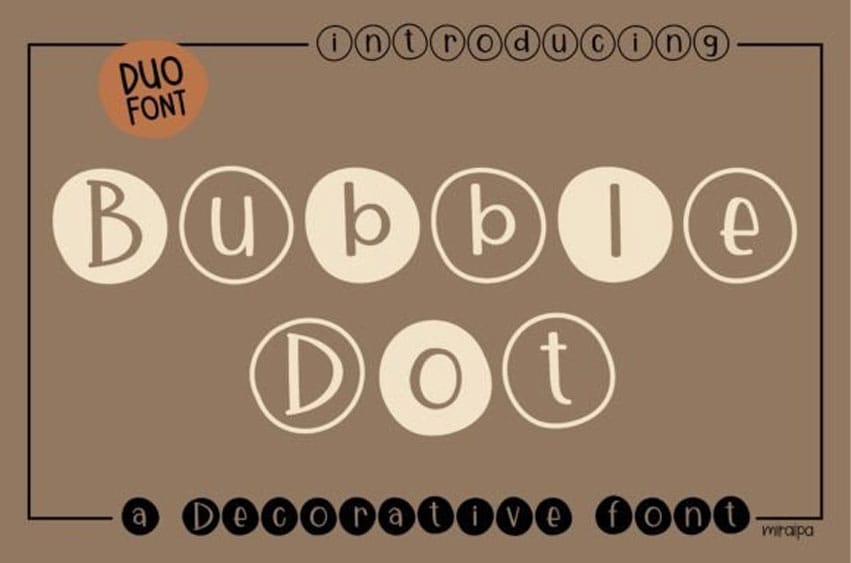
Bubble Dot Font is a cute display font.
Whether you’re using it for crafts, digital design, presentations, or making greeting cards, this font has the potential to become your favorite go-to font, no matter the occasion!